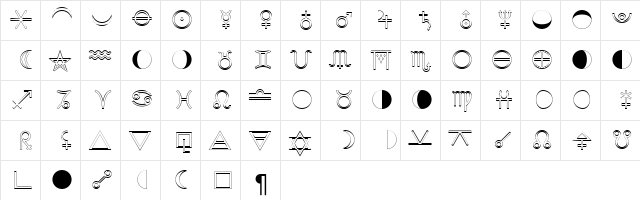
AstrotypeP LT Std Outline Regular
| Foundry | Linotype Library GmbH |
| Designer | Andreas Hild |
Design Context for AstrotypeP LT Std Outline Typeface
AstrotypeP LT Std Outline is built around its visual character rather than neutral utility — its distinctive forms are designed to make an impression at display sizes. Its slender proportions lend an understated elegance to any composition.
Font Pairing: Pair with a clean neutral sans-serif for body copy to let AstrotypeP LT Std Outline's character lead without overwhelming the composition.
Pro Tip: Use AstrotypeP LT Std Outline exclusively at display sizes — it was designed to be seen, not read at length. Let a neutral companion handle body copy.